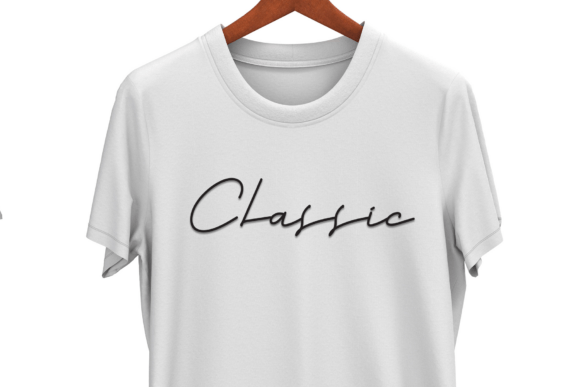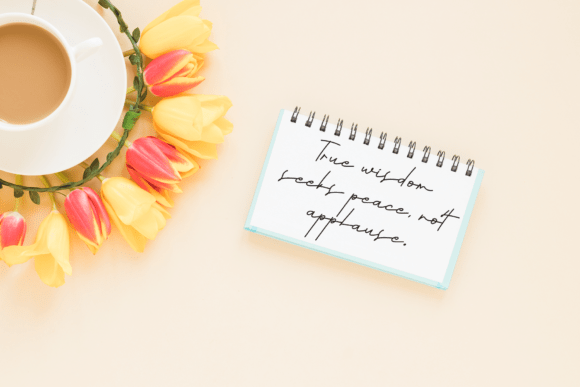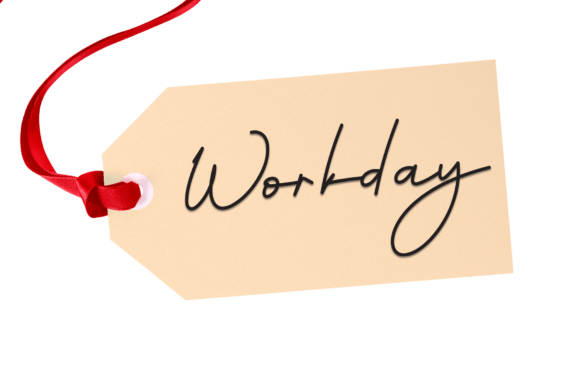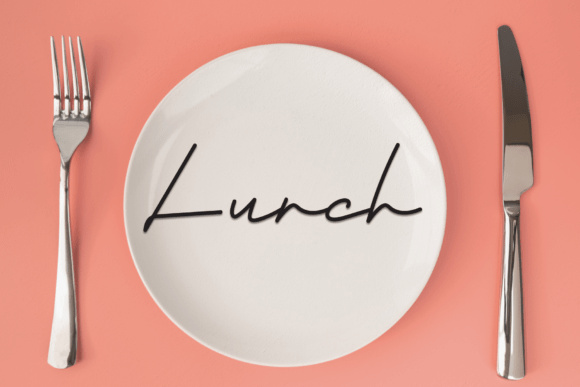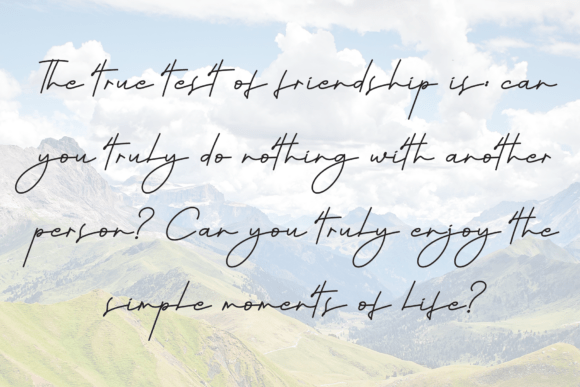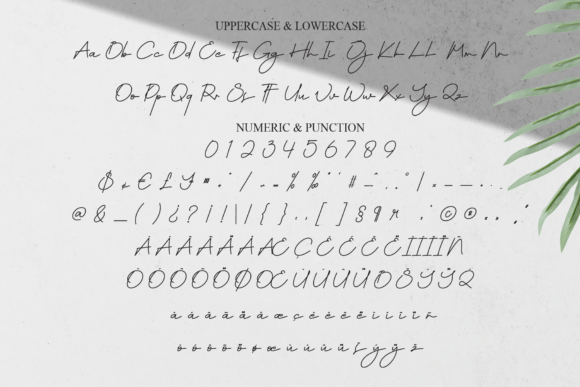
The Perfect Blend of Elegance and Sophistication
Have you ever found yourself staring at a blank page, trying to find the perfect words to express the essence of your creative vision? The pressure to create something truly unique and captivating can be overwhelming, but what if I told you there’s a secret ingredient that can elevate your designs to new heights? Enter the world of premium fonts, where the Belgia Signature Font takes center stage.
This stunning italic handwritten style font is more than just a typography choice – it’s a statement piece that exudes effortless luxury and sophistication. Designed to add a touch of high-end boutique chic to any project, the Belgia Signature Font is an absolute must-have for designers looking to create premium wedding stationery, personalized signature logos, and more.
Belgia Signature Font Key Features
- Font Family: A custom-designed font with a unique, elegant feel, perfect for creating professional and sophisticated designs.
- Unique Characteristics: Distinctive letterforms, subtle flourishes, and a refined aesthetic make it an ideal choice for luxury brands, high-end publications, and premium packaging designs.
Belgia Signature Font Review
Overall, I was quite impressed with the Belgia Signature Font. It has a unique, elegant aesthetic that’s perfect for high-end brands or luxury products. ✨
- The font’s subtle flair and swashes add a touch of sophistication, making it perfect for corporate or upscale branding.
- The bold and light weights are well-designed, allowing for versatility in typography and layout.
- The font is highly legible, even at smaller sizes, which is essential for digital applications.
- The font may be too ornate for simpler designs or applications where minimalism is preferred. ⚠️
- The font’s high-end feel may not be suitable for every brand or product, particularly those with a more casual or playful tone.
Overall, I think the Belgia Signature Font is a great choice for designers looking to create a luxurious or high-end brand identity. While it may not be the best fit for every project, it’s certainly a unique and stylish option to consider.
The Belgia Signature Font is perfect for:
- Creatives and designers looking for a unique font
- Businesses seeking to add a touch of sophistication to their branding
- Artists and writers who want to express themselves through typography
Alternatives to Belgia Signature Font
Great Vibes is a beautiful, elegant script font perfect for creating a luxurious and sophisticated look. It’s ideal for high-end branding, wedding invitations, and luxury product packaging. Compared to Belgia Signature Font, Great Vibes has a more refined and polished feel, making it suitable for more formal projects.
Alex Brush is a handwritten font that exudes warmth and personality. It’s perfect for creating a friendly and approachable tone in branding, marketing materials, and editorial content. In comparison to Belgia Signature Font, Alex Brush has a more casual and relaxed feel, making it ideal for projects that require a human touch.
Pacifico is a beautiful, modern script font that evokes the feeling of a tropical paradise. It’s perfect for creating a relaxed and beachy vibe in branding, advertising, and packaging. Compared to Belgia Signature Font, Pacifico has a more laid-back and casual feel, making it suitable for projects that require a fun and carefree tone.
What is the font’s supported character set, and does it include any special characters?
The Belgia Signature Font supports a wide range of characters, including Latin, Cyrillic, and Greek alphabets. It also includes a selection of special characters, such as punctuation marks, symbols, and emojis. You can check the font’s character map to see the specific characters supported by the font.